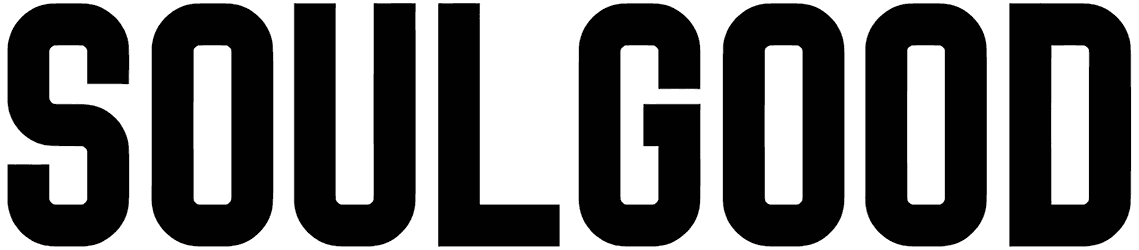
Soulgood Font
Modest, strong, and modern, these features perfectly describe the Soulgood font. This sans serif font is a versatile item and you can count on it for varied projects, for instance, a carwash banner or an airline logo. In…
Modest, strong, and modern, these features perfectly describe the Soulgood font. This sans serif font is a versatile item and you can count on it for varied projects, for instance, a carwash banner or an airline logo. In our basic font collection, you can find countless options that can satisfy you.